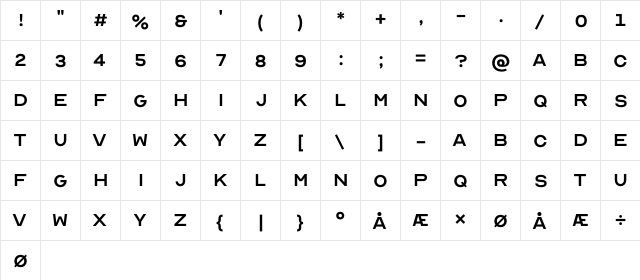
Optician Sans Regular
| Designer | FǢio Duarte Martins |
Design Context for Optician Sans Typeface
Optician Sans takes a measured approach to typography — its balanced proportions and neutral character make it a reliable workhorse for both digital and print work.